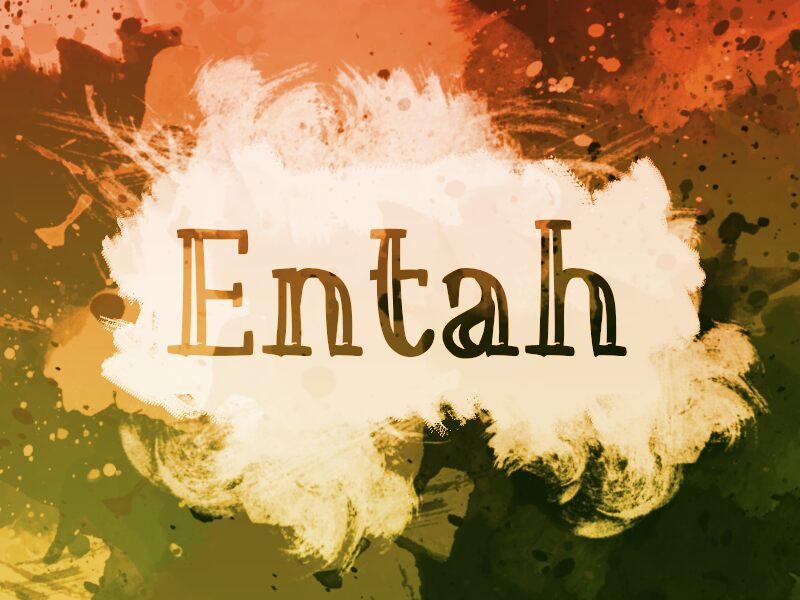
Entah
Entah, a captivating display font designed by wep, adds a touch of elegance and uniqueness to any project. With its clean lines and intricate details, this versatile font is perfect for branding luxury products, fashion magazines, or high-end websites. The semi-bold typeface balances sophistication with a modern twist, making it suitable for logo designs that demand attention. Whether you're creating advertisements for haute couture or crafting invitations for exclusive events, Entah's impeccable design ensures your message stands out from the crowd. Let this remarkable font elevate your projects to new heights of sophistication and style.